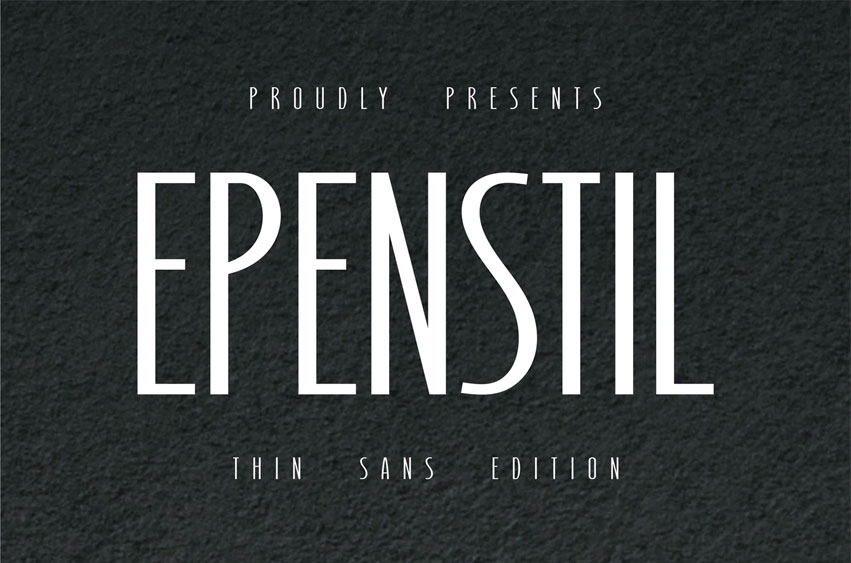
Epenstil Font
Epenstil Font is a sleek, sturdy font for products related to things that are sleek yet strong. such as light steel, quality plastic, rubber, or journal books.
Apart from that, calendars are also a suitable choice.
sleek strong is the default of this font.